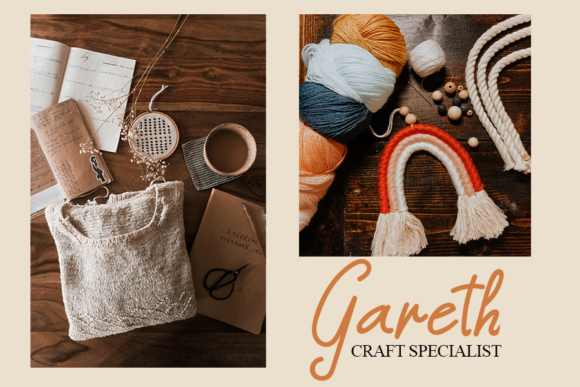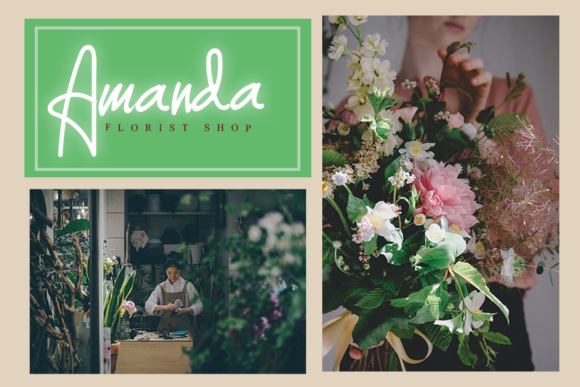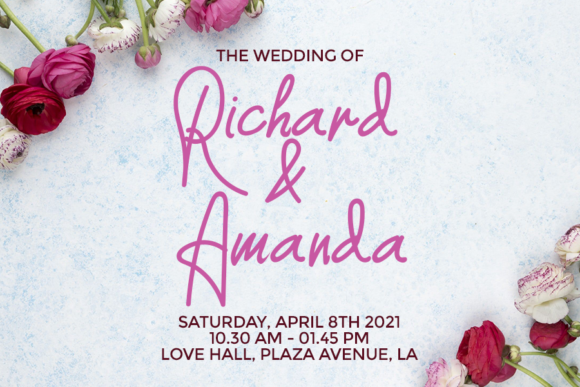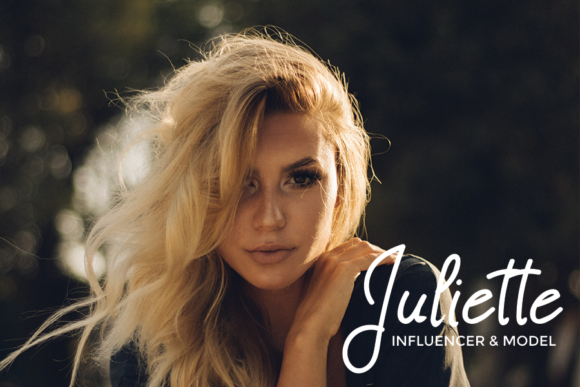
About Biggest Dream Font
Biggest Dream is a beautiful and light handwritten font with a unique feel and a stunning impact. It will add a luxury spark to any design project that you wish to create!